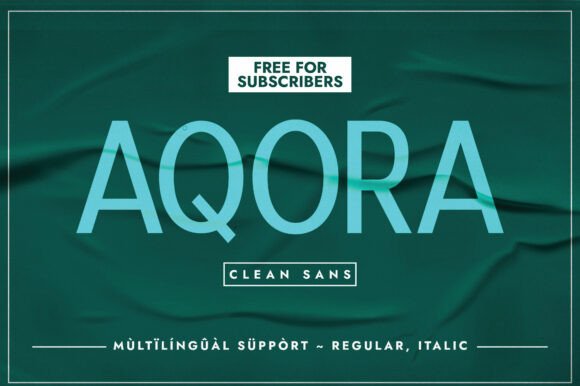
The Aqora Font: A Designer’s New Best Friend?
I’ll never forget the time I was working on a packaging design project for a trendy skincare brand. My client was specific about wanting a clean, modern look that would appeal to their target audience. I spent hours scouring the internet for the perfect font, but nothing seemed quite right. That was until I stumbled upon Aqora. This beautiful sans serif typeface has been a game-changer for me, and I’m excited to share my experience with you.
An Honest Review of Aqora
So, what makes Aqora so special? Let’s dive into the good stuff!
- ✨ Clean and minimalist design: Aqora’s sleek lines and simple shapes make it perfect for a wide range of design projects.
- ✅ Condensed style: This font is ideal for projects where space is limited, but you still want to make a big impact.
- 💡 Versatility: From packaging design to web design, Aqora adapts seamlessly to different themes and styles.
Of course, no font is perfect, and Aqora has a few minor quirks:
- 🤔 Limited character set: While Aqora has a wide range of characters, it may not have every special character or glyph you need.
- ⚠️ Not ideal for body text: Due to its condensed style, Aqora may not be the best choice for long blocks of text.
- Take advantage of OpenType features like glyphs and stylistic alternates to add some extra flair to your design.
The Story Behind Aqora
Aqora was designed with the goal of creating a clean, modern sans serif font that would be versatile enough to use in a wide range of design projects. The designer wanted to create a font that was both elegant and approachable, with a unique condensed style that would make it stand out from other fonts.
| Font Name | Aqora Font |
| Author | Minimalistartstudio |
| What is Aqora? | Aqora is a clean, minimalist, and condensed sans serif typeface. |
| What can I use Aqora for? | Aqora is perfect for a wide range of design projects, including packaging design, cosmetics design, web design, book covers, posters, and more. |